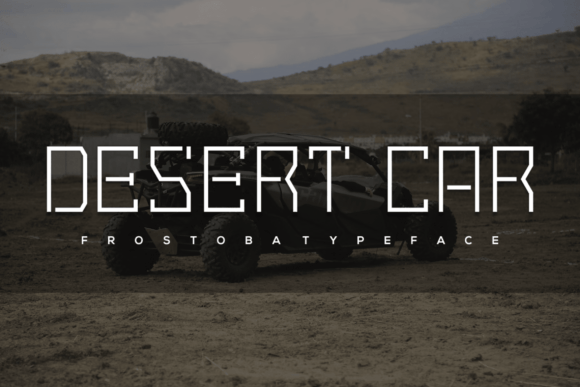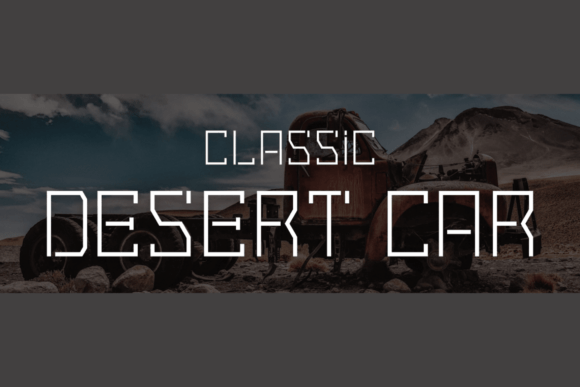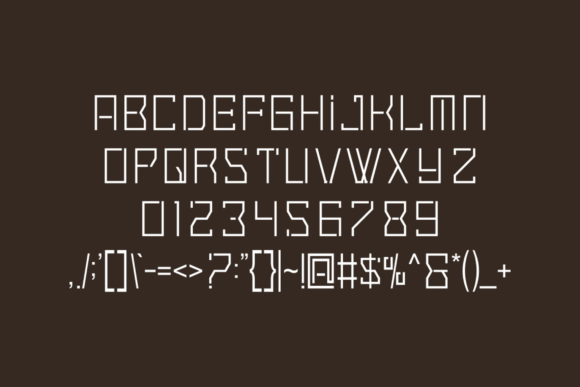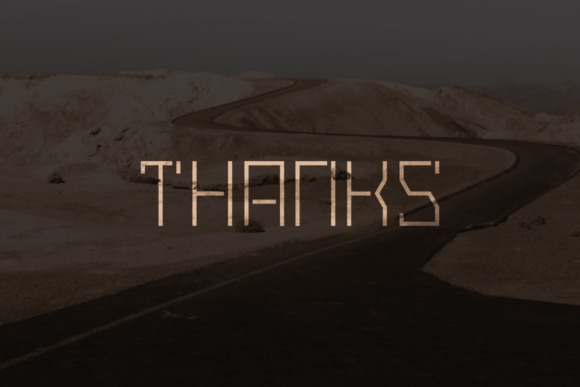
in Serif FontsFrostoba FontAbout Frostoba Font 100 Views View Gallery 5 images FROSTOBA FONT SPECIMENFrostoba is a bold and authentic slab serif font. The font is suitable for any branding project like logo, t-shirt printing, e-sport, and many more. It will look outstanding in a wide range of contexts. Frostoba Font Written by canyonadmin Leave a Reply Cancel replyYour email address will not be published. Required fields are marked *Comment *Name * Email * Website Save my name, email, and website in this browser for the next time I comment.